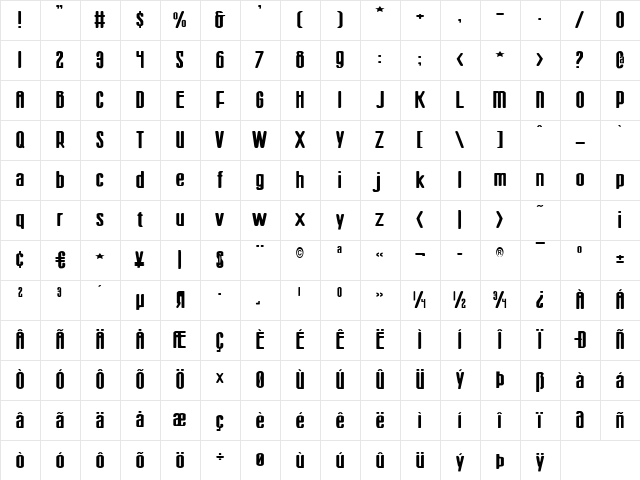
Sister Europe Wide Wide Free Font
Sister Europe Wide Wide
Style: Wide
Design Context for Sister Europe Wide
Sister Europe Wide is a composed and adaptable typeface that performs quietly and consistently across a wide range of design contexts.